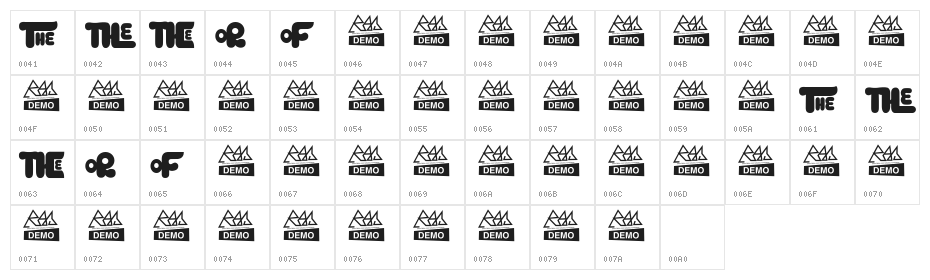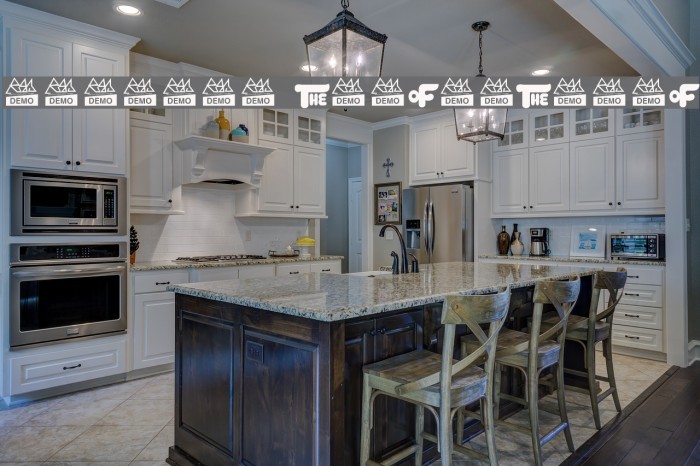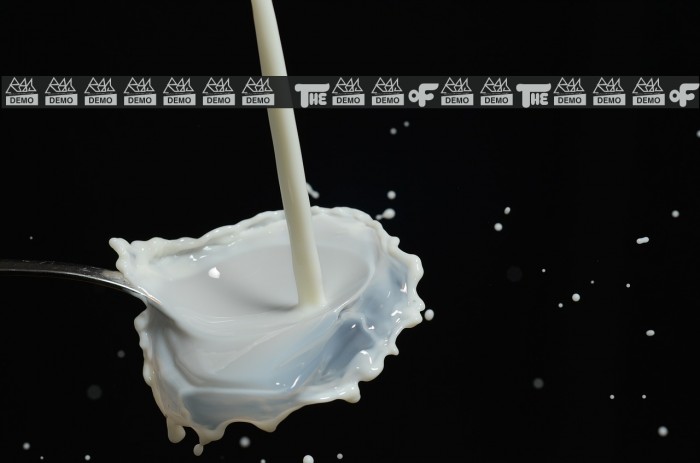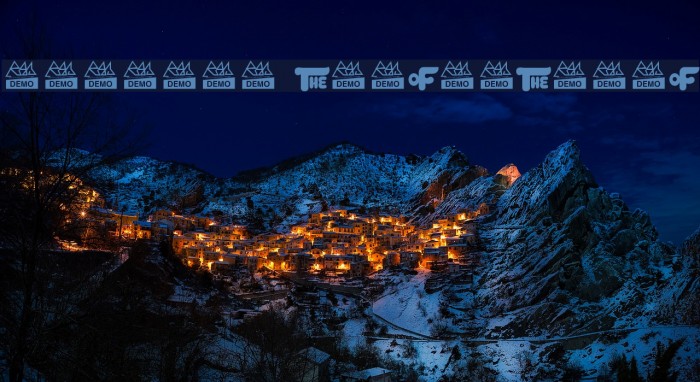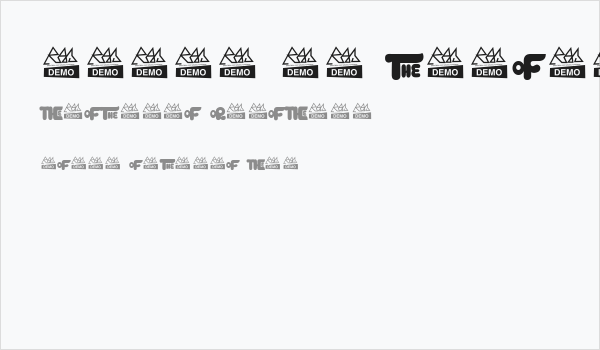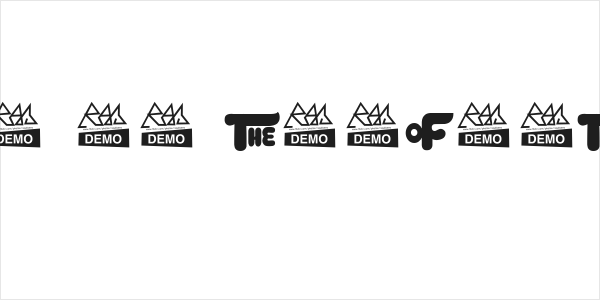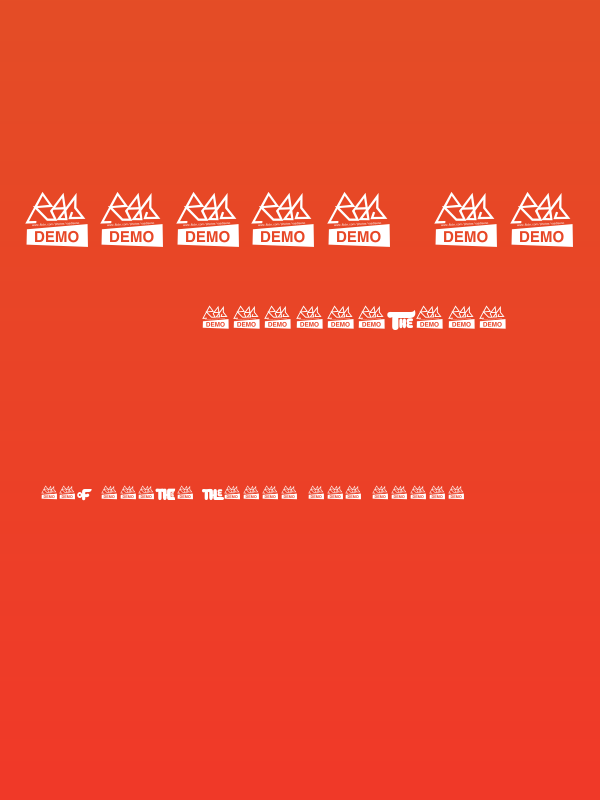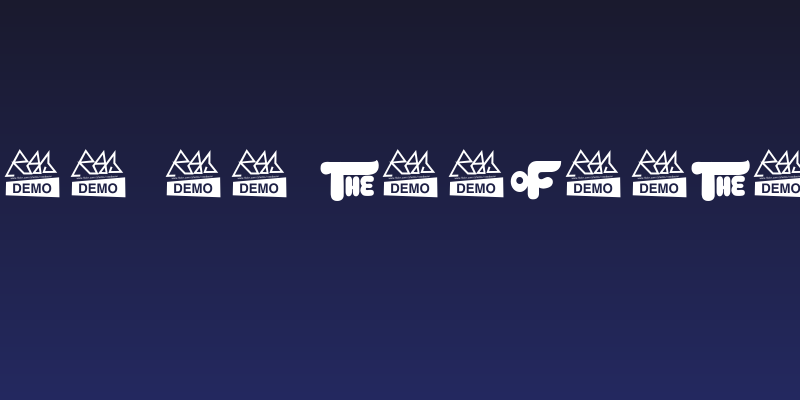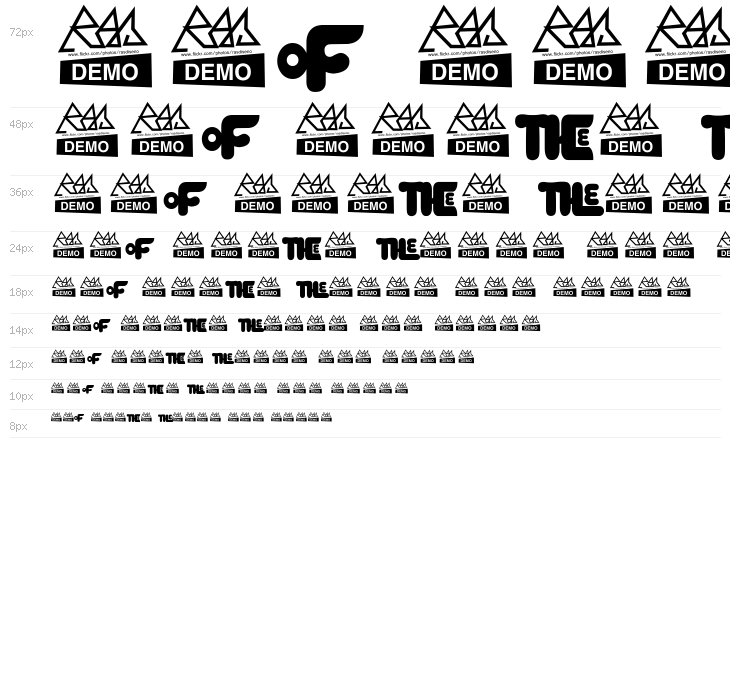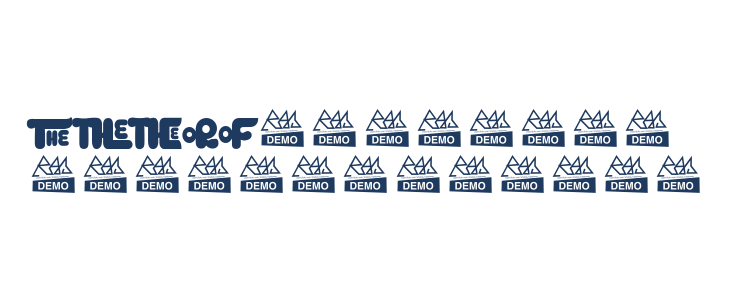
Kingköng Alternative Font
Kingköng Alternative Description
This font features a bold and playful design with a unique, artistic flair. The characters are rounded and have a whimsical, almost cartoonish style, making them stand out with their thick strokes and exaggerated forms. The font is highly decorative, with a distinctive personality that captures attention. It is ideal for creative projects where a fun and engaging look is desired. The letters are closely spaced, enhancing the bold appearance and creating a cohesive visual impact.
| Overall Style | Playful and Artistic |
| Proposed Projects | Ideal for children's books, playful branding, posters, and creative event invitations. |